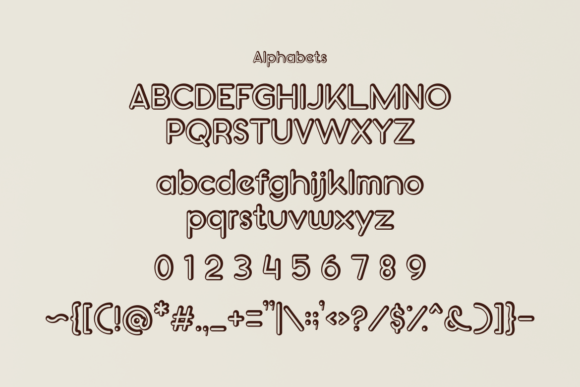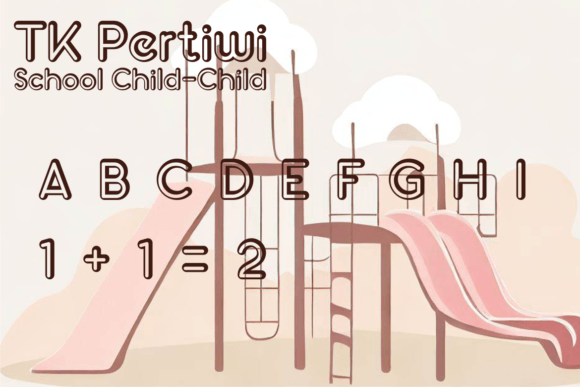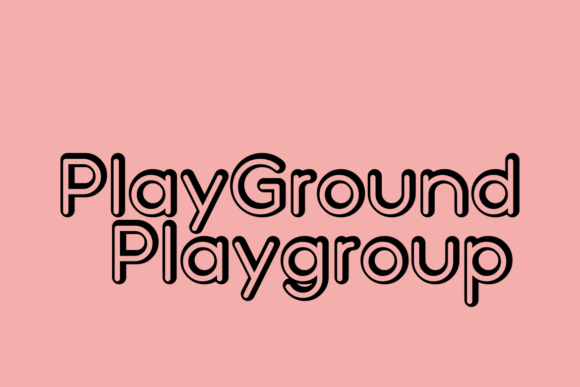
Bringing Whimsy to Design: Introducing the Giweyo Font
Who hasn’t experienced that magical moment when a burst of creativity strikes, and suddenly a project that was once dull and uninspiring is transformed into something truly special? For designers, it’s that spark of imagination that sets our hearts racing and inspires us to create something truly unique. And that’s exactly what the Giweyo Font is all about – igniting a sense of playfulness and fun in every project it touches.
The Giweyo Font is a vibrant display font designed specifically for theme creations, full of character and personality. Perfect for pairing with cartoon colors, this font is a match made in heaven for children’s zones, birthday events, greeting cards, children’s products, toys, and much more. As a designer, you’ll love the Giweyo Font for its versatility and ability to add a touch of whimsy to even the most mundane projects.
Giweyo Font Key Features
- Font Family: Giweyo is a unique sans-serif font family designed for modern and contemporary typography.
- Font Sizes: Giweyo comes in a range of font sizes, from 8 to 72 points, catering to various design needs and applications.
- Resolution: Optimized for high-resolution displays, Giweyo maintains its clarity and legibility at resolutions up to 300 DPI.
- Unique Characteristics: Giweyo features a distinctive geometric shape and a bold, modern aesthetic, making it an excellent choice for digital and print media.
- Language Support: Giweyo supports a wide range of languages, including Latin, Cyrillic, and Greek scripts, making it a versatile font for global applications.
Giweyo Font Review
Giweyo Font has some intriguing elements that caught my attention. ✨ Its bold and modern design makes it suitable for titles, headings, and logos. The font family has a unique charm and can be used for a variety of creative projects. It also comes in different weights and styles, which adds to its versatility.
- ✨ The font’s bold design makes it perfect for titles and headings.
- ✨ The font family is quite versatile and can be used in various creative projects.
- ✨ Different weights and styles make it suitable for different use cases.
However, there are some limitations to consider. ⚠️ The font may not be suitable for body text due to its bold nature, which can be overwhelming for large blocks of text. Additionally, some characters may not be as smooth or refined as others, which can affect the overall reading experience.
- ⚠️ May not be suitable for body text due to its bold nature.
- ⚠️ Some characters may not be as smooth or refined as others.
Overall, Giweyo Font is a great choice for projects that require a bold and modern design. While it has some limitations, it can be a valuable addition to any designer’s toolkit. With proper use, it can add a unique touch to any project.
Tips for Getting the Most Out of Giweyo Font
Giweyo Font is ideal for creating unique and eye-catching designs. To get the most out of it, try pairing it with bold or italic fonts to create contrast and emphasis.
Giweyo Font is commonly used for branding, logos, and marketing materials. It’s also a great choice for creating social media graphics, posters, and flyers.
Alternatives to Giweyo Font for Designers
Playfair Display is a luxurious, high-end serif font suitable for formal invitations, magazines, and high-end branding. It’s perfect for adding an air of sophistication and elegance to your designs. When to use: luxury brands, formal events, high-end publications.
Playfair Display is more elegant and refined compared to Giweyo Font, which has a more vintage and distressed look. While Giweyo Font is ideal for creating a nostalgic or retro vibe, Playfair Display is better suited for creating a sense of luxury and sophistication.
Crimson Text is a serif font with a classic, timeless feel, suitable for body text, headings, and titles. It’s perfect for creating a sense of warmth and approachability in your designs. When to use: body text, headings, titles, and publications.